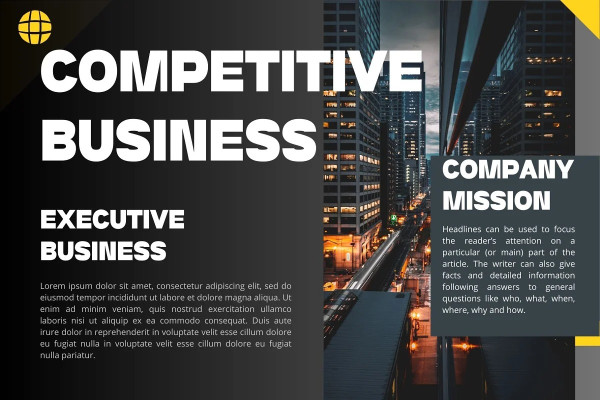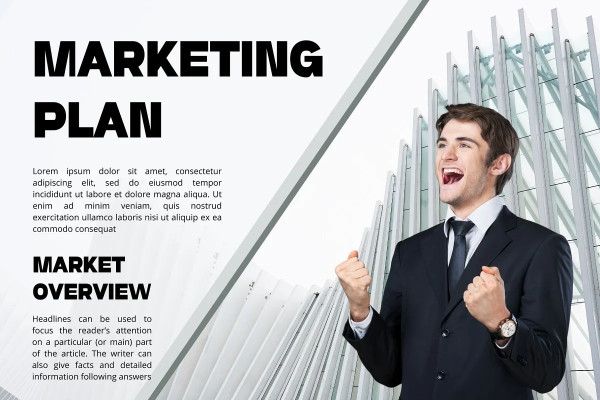
Rights Font
Rights Font – Modern Sans Serif Font inspired by the famous minimalist logo perfect for the purposes of designing templates, brochures, videos, advertising branding, logos, invitation, layout design, elegant crafting, beauty design and other